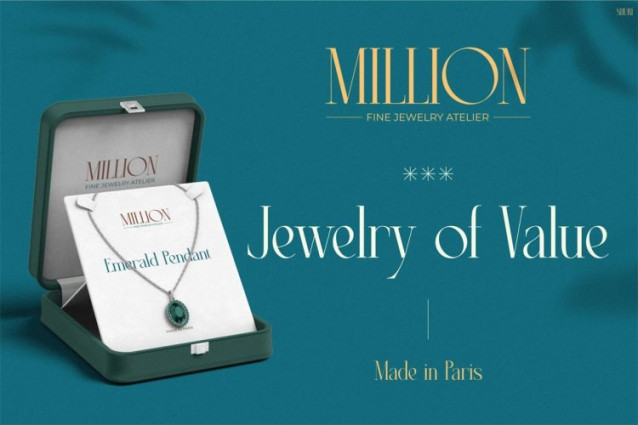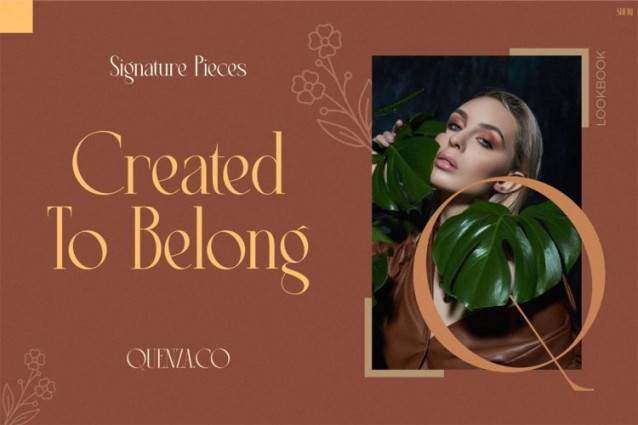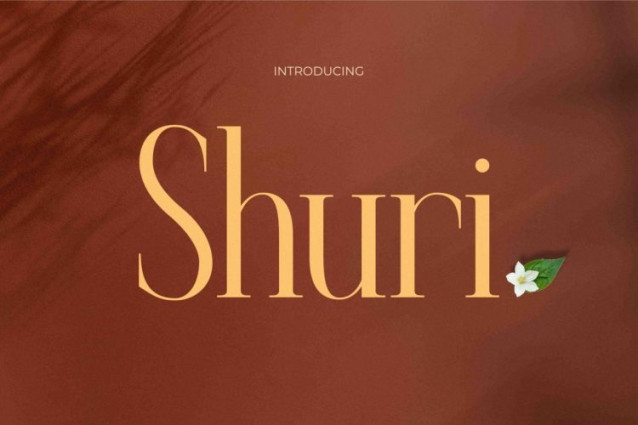
Shuri Font
Shuri Font opens with refined elegance and confident calm, making it a standout choice for designers who value subtle luxury. From the first glance, this font communicates grace, balance, and premium taste. Its high-contrast strokes, smooth curves, and carefully shaped serifs create a timeless aesthetic. Moreover, the letterforms feel modern yet classic, which allows Shuri to perform beautifully across fashion visuals, editorial layouts, and upscale branding. Because of its polished proportions, every word looks intentional, composed, and visually elevated. As a result, your designs instantly feel more exclusive and trustworthy.
At the same time, Instagram Font Shuri is highly functional. It delivers excellent readability in headlines while still maintaining a sophisticated personality. Additionally, the font adapts well to both digital and print formats. Whether used on Instagram posts, luxury packaging, or magazine covers, Shuri keeps its clarity and charm. Therefore, it becomes a powerful tool for storytelling, branding, and visual identity projects that demand elegance without excess.
Instagram Font Shuri is a luxury serif typeface designed to express confidence, refinement, and calm authority. First, its graceful letterforms create strong visual rhythm. Then, its consistent stroke contrast adds a premium editorial feel. Furthermore, the balanced spacing ensures clean layouts and professional results. Because of this, designers can use Shuri for bold titles or refined body text without losing harmony. In addition, its versatile character set supports modern branding needs, promotional graphics, and high-end social media content. Ultimately, Shuri helps brands communicate value, trust, and timeless beauty through typography alone.
Perfect For Who
Instagram Font Shuri is ideal for fashion brands, jewelry labels, beauty businesses, and lifestyle influencers. Likewise, it suits designers working on magazines, lookbooks, luxury packaging, hotels, resorts, and real estate branding. Moreover, content creators, Instagram marketers, and boutique owners will benefit from its premium presence. If your audience values elegance, quality, and calm confidence, then Shuri fits perfectly. Therefore, this font works best for projects that aim to feel exclusive, refined, and visually memorable.
In conclusion, Instagram Font Shuri transforms ordinary text into a statement of luxury. Because it blends beauty with function, it elevates every design it touches. Choose Shuri today and give your brand the sophisticated voice it deserves.